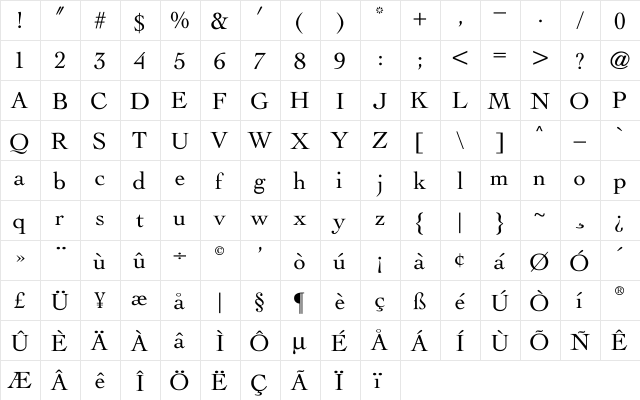
Cochinchine Regular
Cochinchine takes a measured approach to typography — its balanced proportions and neutral character make it a reliable workhorse for both digital and print work.